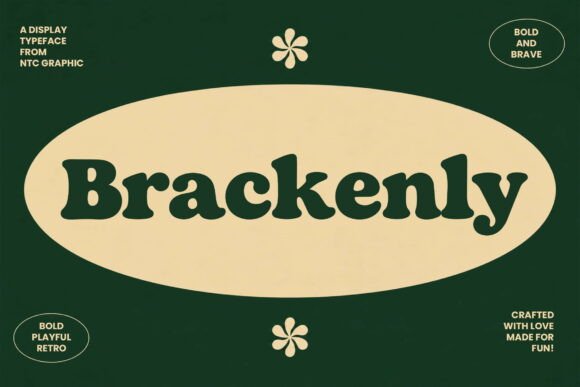
Brackenly Review: When This Display Font Really Works
Some fonts whisper. Others announce themselves before you even read the words. Brackenly falls squarely into the second camp. The first time I loaded it into a mockup, I felt that rare spark, the kind that makes you lean closer to the screen and start mentally placing it into three different client projects at once. This is not a quiet typeface. It carries weight, texture, and a deliberate sense of drama that feels earned rather than forced.
What struck me immediately was the tension between structure and fluidity. The letterforms have a grounded, almost architectural backbone, yet the curves and terminal details introduce a warmth that keeps things from feeling cold or overly rigid. It reads like a display font designed by someone who understands that impact and nuance are not mutually exclusive. That balance is harder to achieve than most non-designers realize.
The Personality Sitting Inside Brackenly
If I had to assign a mood to Brackenly, I would call it confident nostalgia with a modern edge. There is a whisper of vintage lettering in the way certain strokes taper, a nod to hand-painted signage and early twentieth-century poster art. But the execution is thoroughly contemporary. The spacing feels intentional. The weight distribution across characters is consistent enough to build trust without becoming monotonous.
This is a creative font that understands restraint. It does not rely on excessive ornamentation to make its point. Instead, it uses subtle contrast, slightly condensed proportions on certain glyphs, and a vertical rhythm that feels solid and anchored. For brand work, that matters enormously. A typeface that screams too loudly in every size leaves no room for the message. Brackenly projects presence without exhausting the viewer.
Where This Font Naturally Belongs
I test every new typeface by dropping it into a handful of real-world scenarios: a coffee bag label, a website hero section, a short editorial quote, and a merchandise mockup. Brackenly performed best in contexts where the typography itself needed to carry the visual weight. Think logo design for a craft distillery. Think packaging design for premium candles or small-batch skincare. Think oversized headlines on lookbook covers or event posters where the words are the primary graphic element.
In brand identity work, I could see this becoming the hero typeface for businesses that want to signal craftsmanship without tipping into rustic cliché. It has enough sophistication to sit comfortably beside high-contrast photography and clean white space. For editorial design, it shines in feature spreads, section openers, and pull quotes where the typography needs to hold the page. The personality is strong, but the legibility at larger sizes holds up impressively well.
Real Project Performance Across Different Mediums
I ran Brackenly through a series of practical tests because a font that looks stunning in isolation can fall apart the moment you ask it to do actual work. Here is where it delivered and where it asked for caution.
Logos and Brand Marks
This is arguably its strongest arena. Short words set in Brackenly have undeniable presence. The letterforms lock together with a natural rhythm that makes customisation easy. I tested it on a fictional brewery mark, a ceramics studio wordmark, and a premium font pairing for a boutique hotel. In each case, the typeface brought enough personality to stand alone without needing heavy modification. For designers building design assets for commercial clients, that time-saving quality is real value.
Packaging and Product Labels
On physical packaging design mockups, Brackenly commanded attention without overwhelming the supporting details. The key is to let it own the primary headline and then step back. Pair it with a clean sans serif font for body copy and ingredient lists, and the hierarchy feels effortless. I also tested it on dark substrates with metallic foil simulation, and the contrast held beautifully. The heavier weights in particular seem purpose-built for premium packaging where tactility matters.
Digital and Social Applications
For social media graphics, website headers, and digital ads, Brackenly performs well at larger sizes on both desktop and mobile screens. The character shapes remain distinct even when overlaid on busy photographic backgrounds, provided you give them enough size and breathing room. I would not recommend it for body text or any paragraph-level reading. That is not a criticism; it is simply not what this display font was built to do. Use it for headlines, quotes, and key messages, and let a workhorse typeface handle the rest.
Printables, Templates, and Craft Projects
For designers creating printable design products, Canva templates, or Cricut projects, Brackenly offers strong appeal. Its distinct character means end users can achieve a polished, intentional look without needing advanced typographic skills. I tested it on invitation layouts, wall art mockups, and tote bag prints. The results felt cohesive and professional. For digital product sellers, this is the kind of typeface that elevates template offerings and attracts buyers looking for something beyond the oversaturated script fonts that flood most marketplaces.